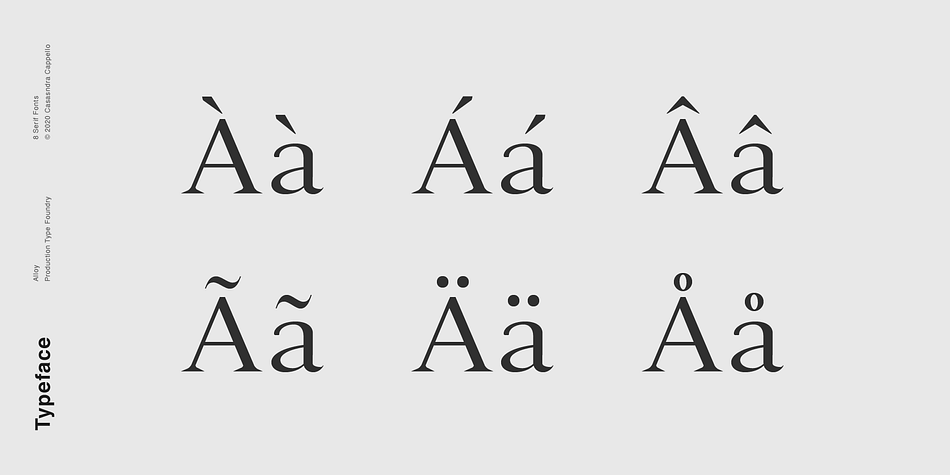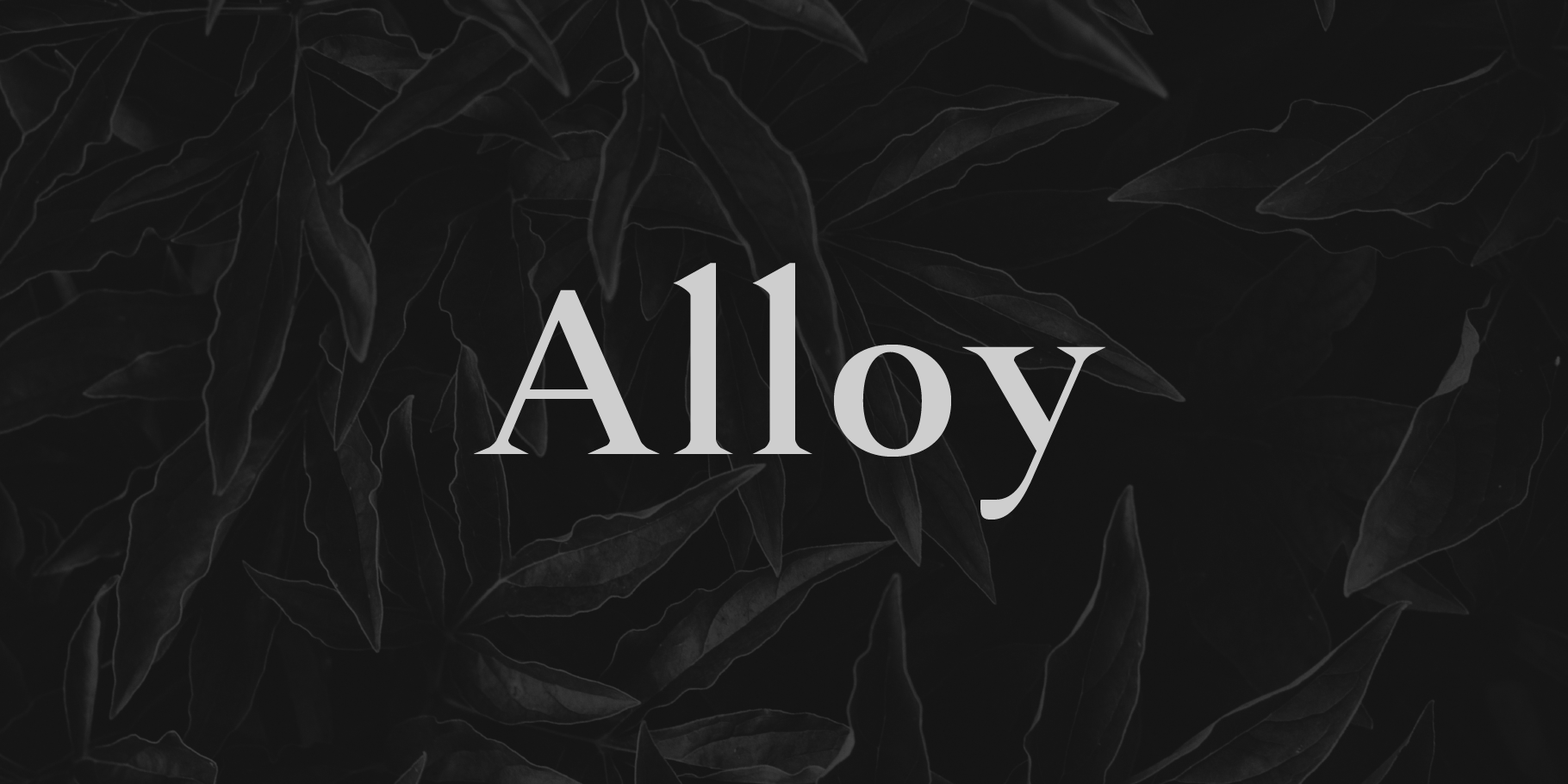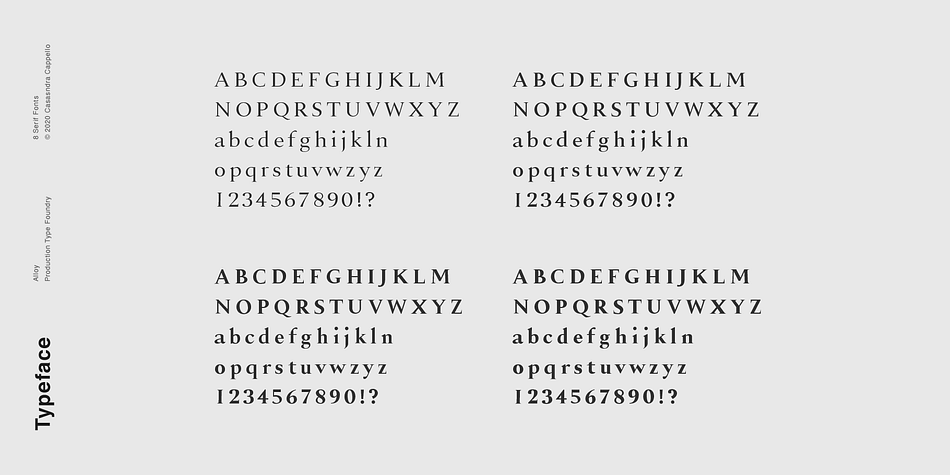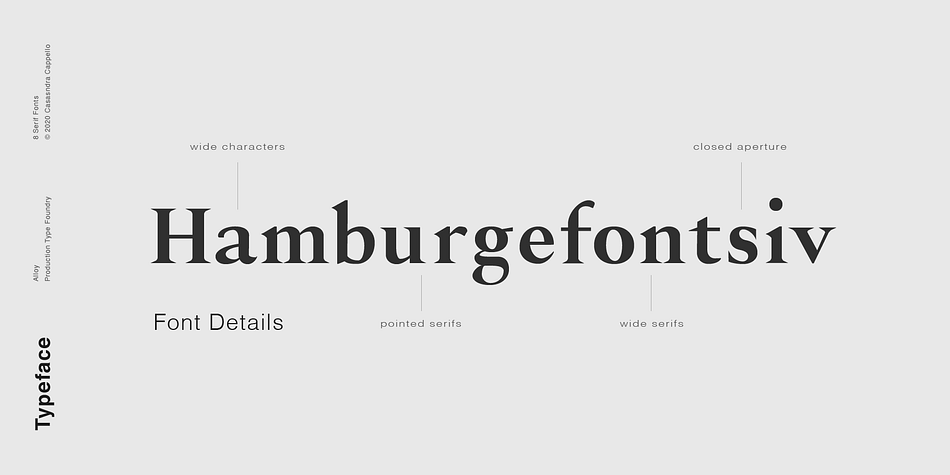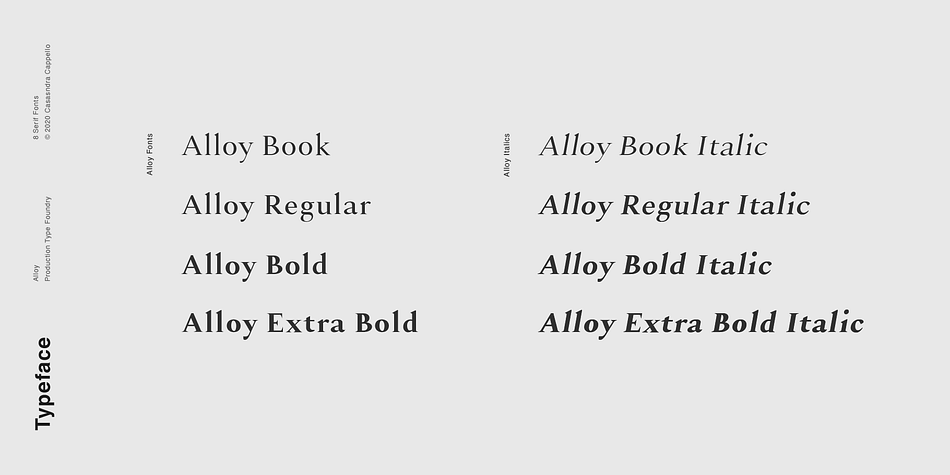
Alloy
Designed by Cassandra Cappello, Alloy is a serif font family. This typeface has eight styles and was published by Cappello Designs.
Alloy is a strong typeface with pointed serifs. It’s inspired by Transitional typefaces of the 18th century which are classically characterized by their wider bracketed serifs and vertical stress. Alloy is quite a weighty font, all four weights have a strength and presence on the page.
It has a little bit of personality and can be used for headers and body copy. This font family includes all Latin characters (including accents), numbers, special characters, and punctuation.